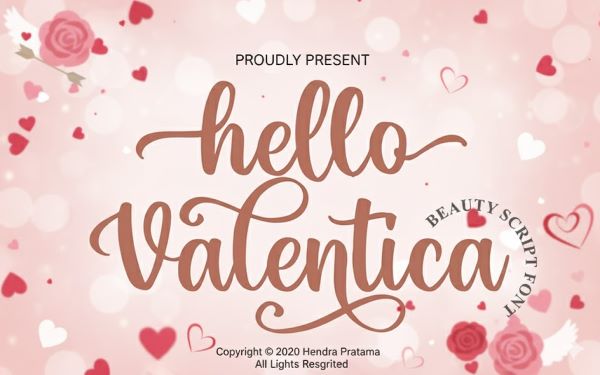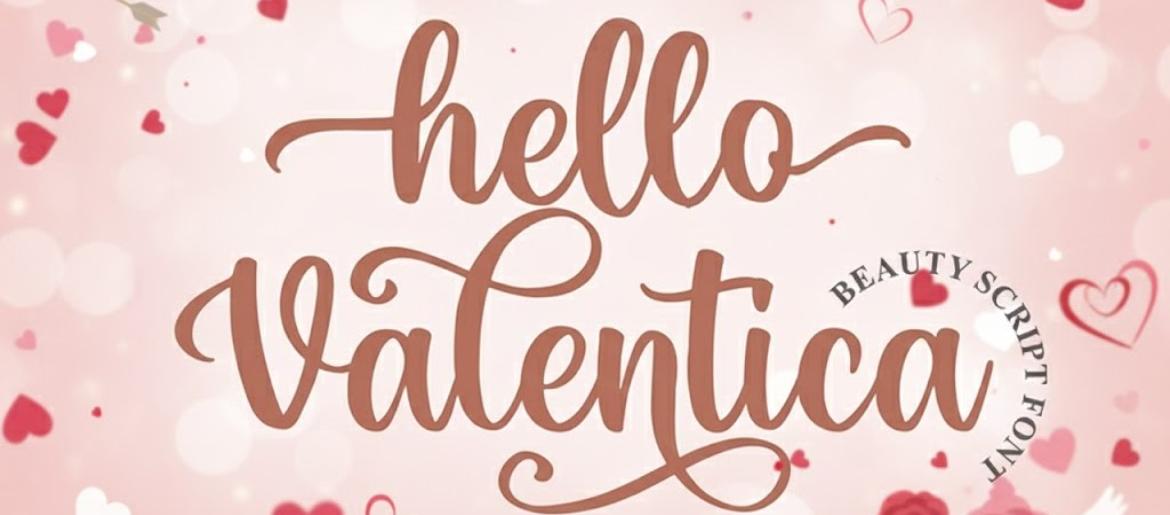
Hello Valentica Font
Hello Valentica Font is a charming handwritten typeface with smooth, flowing strokes and a romantic, friendly personality. Its natural, casual style makes it perfect for love quotes, invitations, logos, social media graphics, and creative branding. Hello Valentica adds warmth, elegance, and a sweet personal touch to any design.
➤ Font Name: Hello Valentica
➤ Designer: Blankids
➤ Style: Calligraphy